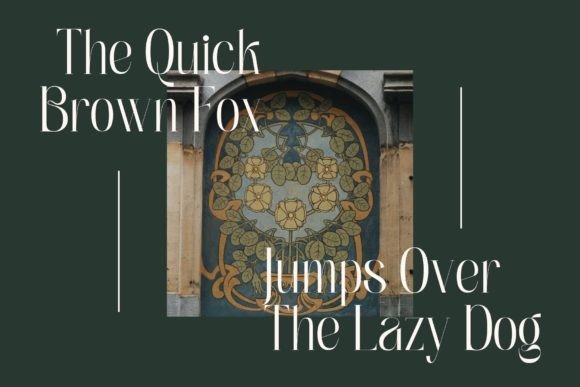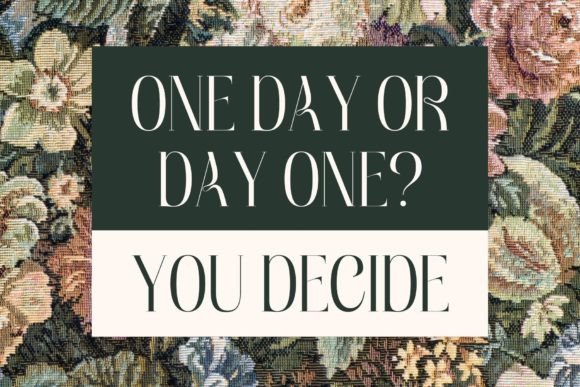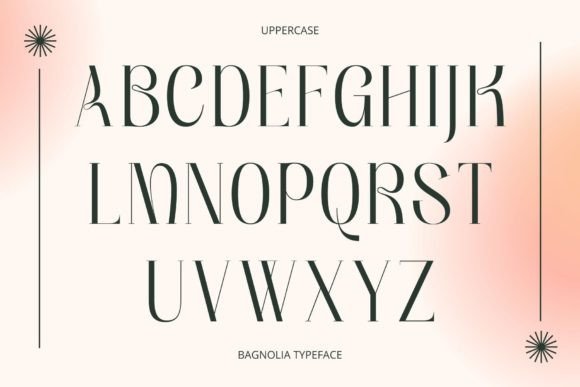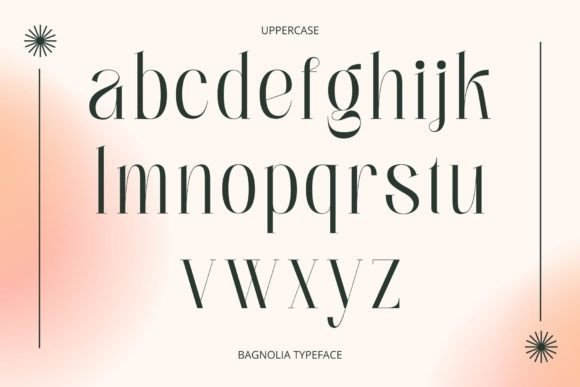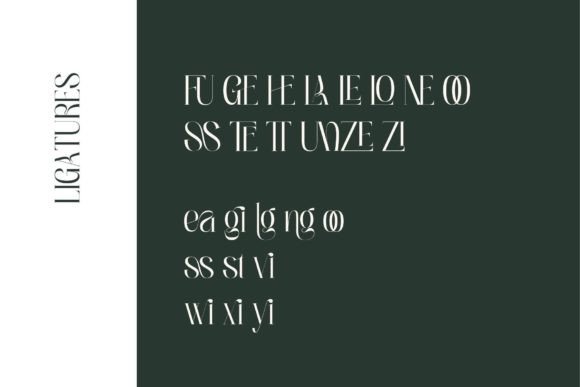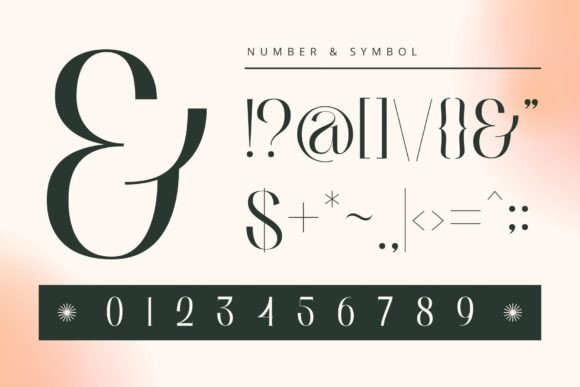
Bagnolia Font: Elevate Your Designs with Elegance and Harmony
In the world of design, typography plays a crucial role in conveying messages, expressing creativity, and building brand identities. A well-chosen font can make all the difference in transforming a design from ordinary to extraordinary. This is where Bagnolia Font comes into play – a contemporary display font designed to bring beautiful typographic harmony to a wide range of design projects.
What is Bagnolia Font?
Bagnolia Font is a modern, stylish, and versatile display font that offers a unique blend of elegance and sophistication. Its clean lines, subtle curves, and carefully crafted letterforms make it an ideal choice for designers and crafters looking to add a touch of refinement to their work.
Key Features of Bagnolia Font
- Contemporary Design: Bagnolia Font boasts a fresh and modern design that is sure to capture attention and leave a lasting impression.
- Typographic Harmony: The font’s carefully crafted letterforms and spacing ensure a beautiful typographic harmony, making it perfect for use in a variety of design projects.
- Versatility: Bagnolia Font is suitable for a wide range of design applications, including logos, branding, social media posts, advertisements, product designs, and more.
- Ease of Use: The font is easy to read and works well in both digital and print formats, making it a great choice for designers who need to create cohesive brand identities across multiple platforms.
Use Cases for Bagnolia Font
Bagnolia Font is an incredibly versatile font that can be used in a variety of design projects, including:
- Logos and Branding: Create a lasting impression with a custom logo or brand identity that showcases your unique style and personality.
- Social Media Posts: Elevate your social media presence with eye-catching posts that feature beautiful typography and engaging visuals.
- Advertisements: Grab attention and drive results with ads that feature clear, concise messaging and stunning visuals.
- Product Designs: Add a touch of elegance and sophistication to your product designs, packaging, and labeling.
- Invitations and Stationery: Create beautiful invitations, business cards, and stationery that reflect your personal style and brand identity.
Benefits of Using Bagnolia Font
By incorporating Bagnolia Font into your design projects, you can:
- Enhance Your Brand Identity: Create a cohesive and recognizable brand identity that sets you apart from the competition.
- Improve Readability: Ensure that your message is conveyed clearly and effectively, regardless of the platform or medium.
- Boost Creativity: Unlock your creative potential with a font that inspires and motivates you to produce stunning designs.
- Save Time: Streamline your design process with a font that is easy to use and versatile enough to be used across multiple projects.
Bagnolia Font is a powerful design tool that offers a unique combination of elegance, sophistication, and versatility. Whether you’re a designer, crafter, or entrepreneur, this contemporary display font is sure to elevate your designs and help you achieve your creative goals. With its beautiful typographic harmony, ease of use, and wide range of applications, Bagnolia Font is an excellent addition to any design arsenal.